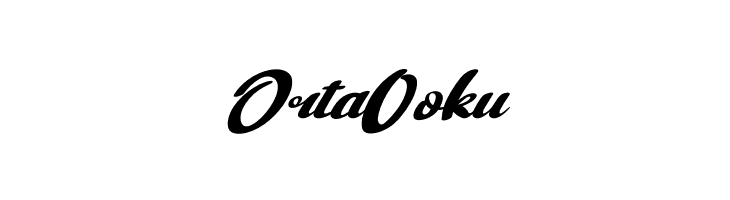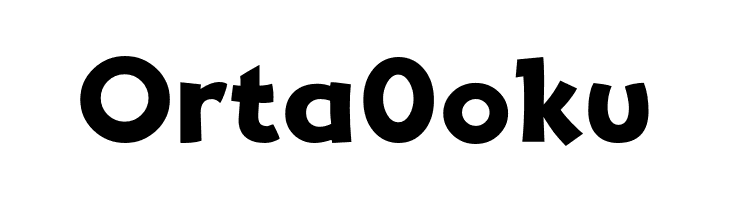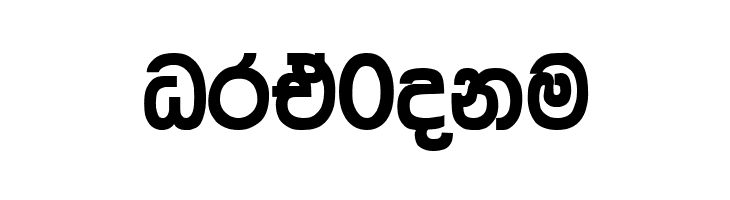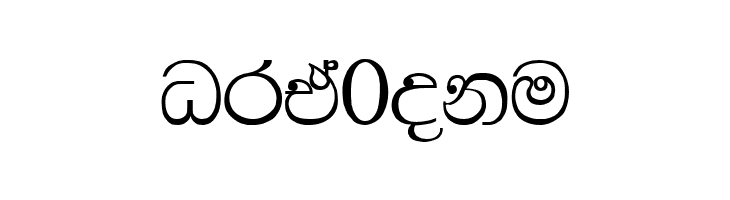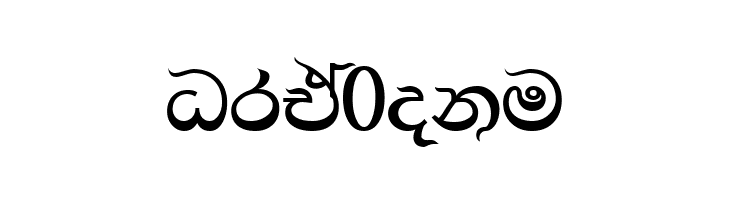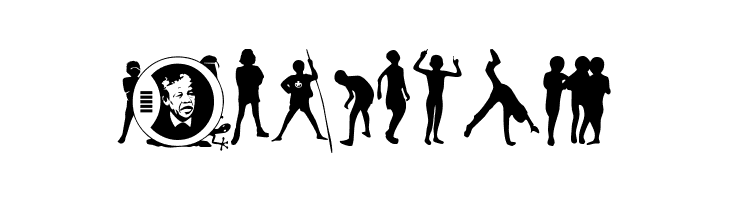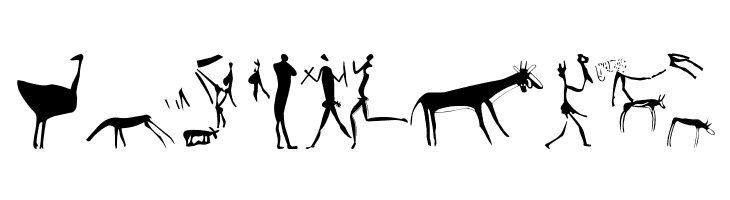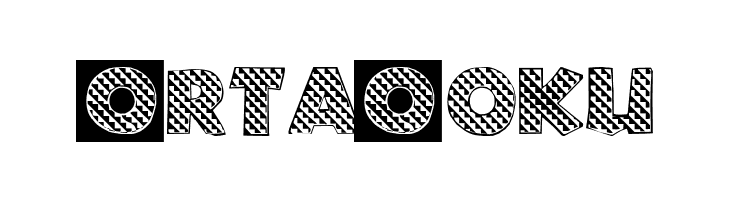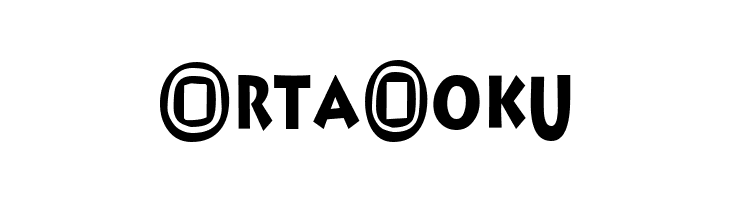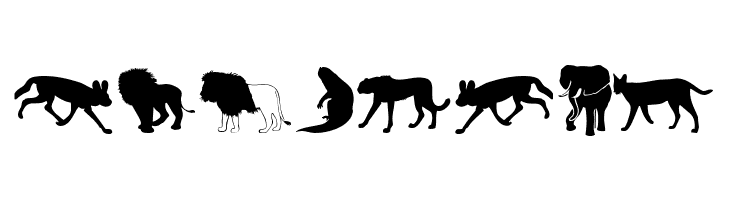
• Adventuring
A bold, playful font with dynamic and slightly irregular letterforms.
• Afrika Images G Sangoma
A decorative font with African-inspired patterns and silhouettes.
• Afrika RockArt N Cberg2
Primitive, hand-drawn glyphs reminiscent of ancient rock art.
• Afrika T Ndlovu
A bold, decorative font with a unique patterned fill, perfect for eye-catching designs.
• Afrika T Ubuntu
A bold, geometric font with a dynamic and modern style.
• Afrika Wildlife B Mammals2
Animal silhouette font with African wildlife motifs.
• Alaymen Personal Use
A bold, elegant script font with flowing, cursive letterforms.
• AMS Bindu
• AMS_Ajith
• AMS_Arunalu